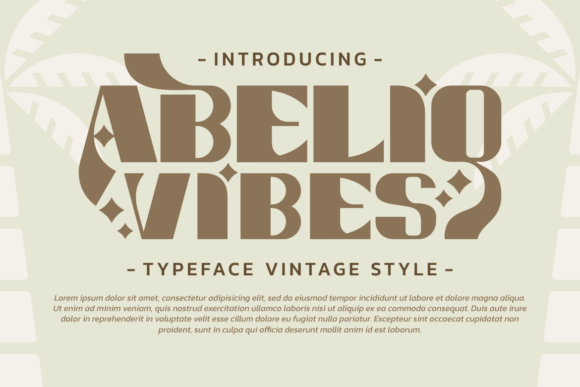
Discover the Bold and Authentic Abeliq Vibes Font
Have you ever been in the middle of a design project, and suddenly, you’re stuck on finding the perfect font? I recall a recent experience where I was working on a branding project for a trendy new coffee shop. The client wanted a bold, eye-catching logo that would stand out on their packaging and merchandise. After hours of searching, I stumbled upon the Abeliq Vibes font, and it was love at first sight! 💕
In this article, we’ll dive into the world of Abeliq Vibes, exploring its features, uses, and what makes it an excellent addition to any designer’s toolkit.
An Honest Review of Abeliq Vibes
What I Love About Abeliq Vibes
• Bold and Authentic: Abeliq Vibes is a statement font that demands attention. Its bold and authentic style makes it perfect for logos, t-shirt printing, product packaging, and more.
• Versatile: This font is suitable for a wide range of contexts, from modern and edgy to elegant and sophisticated.
• 🎨 Highly Customizable: With OpenType features, glyphs, and stylistic alternates, you can experiment with various styles to fit your design needs.
While Abeliq Vibes is an excellent font, there are a few things to keep in mind:
• 🤔 Limited Use in Body Text: Due to its bold nature, Abeliq Vibes might not be the best choice for body text. It’s better suited for headings, titles, and emphasis.
• ⚠️ Glyph Compatibility: Some glyphs or special characters might not work seamlessly with all design software or platforms.
The Backstory of Abeliq Vibes
Abeliq Vibes was designed by a team of creatives who aimed to create a bold and authentic font that would make a statement. Inspired by modern streetwear and urban culture, Abeliq Vibes is a reflection of the vibrant and eclectic world we live in.
Q: What is Abeliq Vibes font?
Abeliq Vibes is a bold and authentic display font suitable for branding projects, logos, t-shirt printing, product packaging, and more.